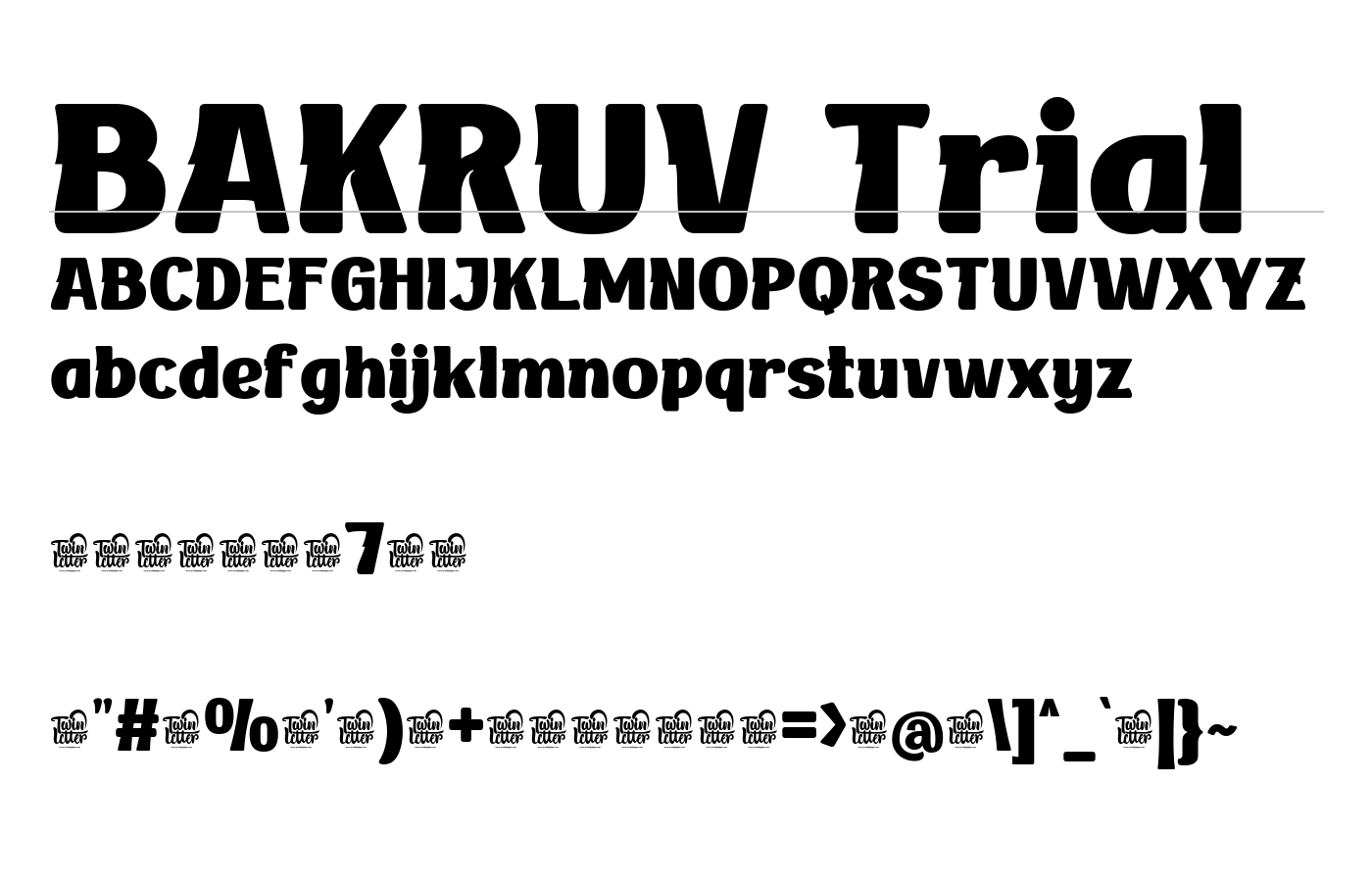
BAKRUV Trial is a bold, condensed serif font with strong blocky shapes and a playful yet sturdy character. Its high x-height and thick strokes give it a confident presence, while the subtle details in terminals add charm and uniqueness, making it perfect for eye-catching headlines, branding, and packaging that want to convey a sense of fun strength and style. This font works well in contexts needing impact and personality without sacrificing readability.
| Font family | BAKRUV Trial Font |
| Designer | Ojak |